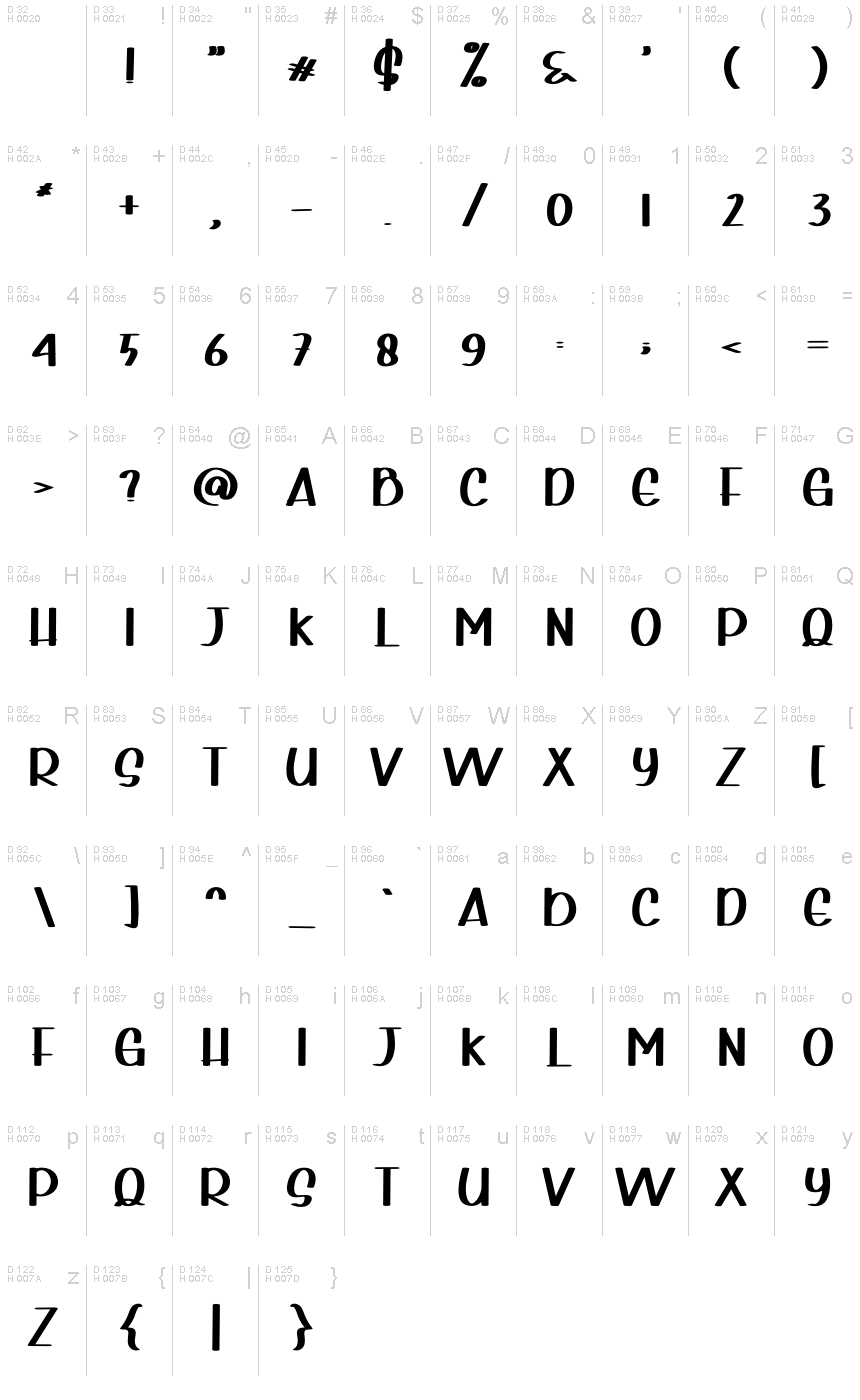
Mini Home
Mini Home, designed by Etik Fatimah, exudes a charmingly informal vibe with its handwritten style that seems to dance whimsically across the page. This font embodies a casual elegance that is both approachable and stylish—its letters crafted as if penned by a skilled artist in a moment of creative inspiration. The playful irregularities in its form suggest a personalized touch, making it perfect for designs that require an intimate, bespoke feel.
The versatility of Mini Home lies in its ability to infuse warmth into various design applications. From heartfelt invitations to boutique branding or whimsical book covers, this font has the potential to turn any project into an endearing piece of art that speaks directly to the heart.